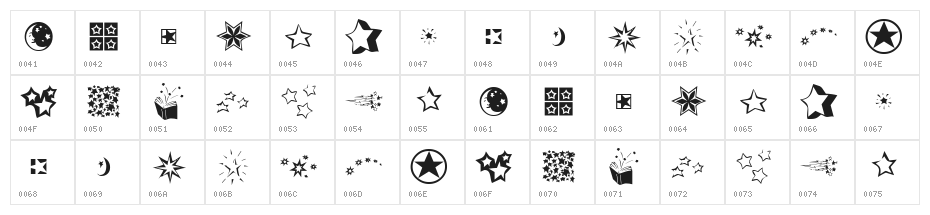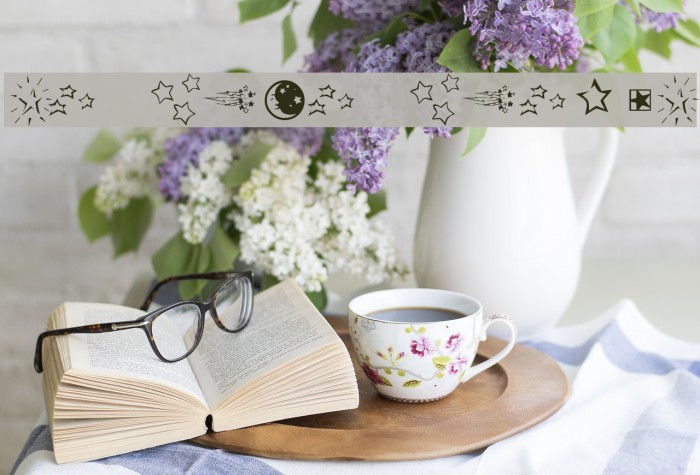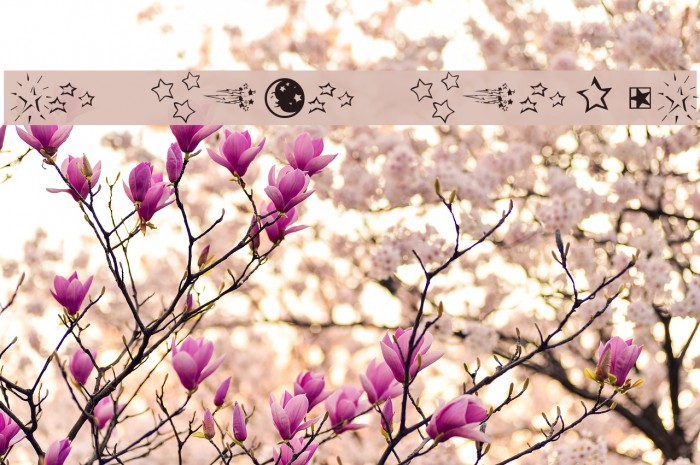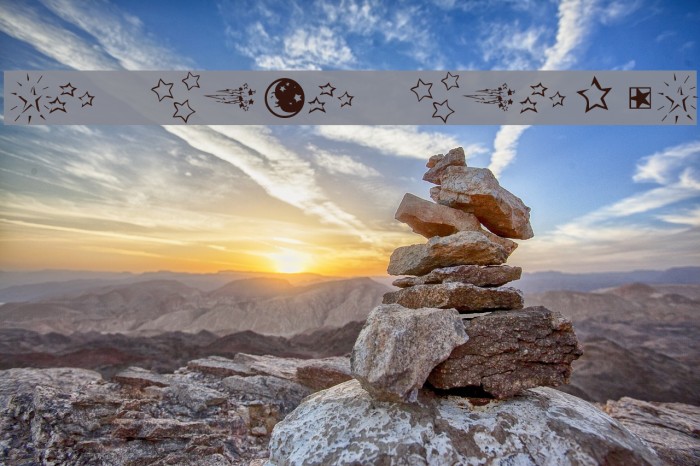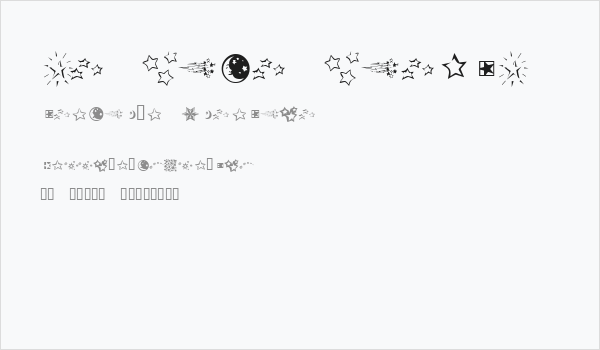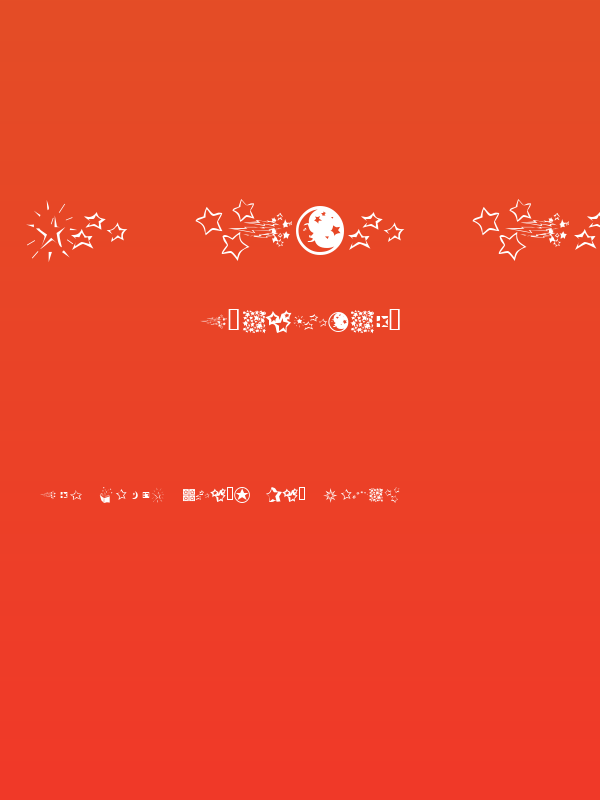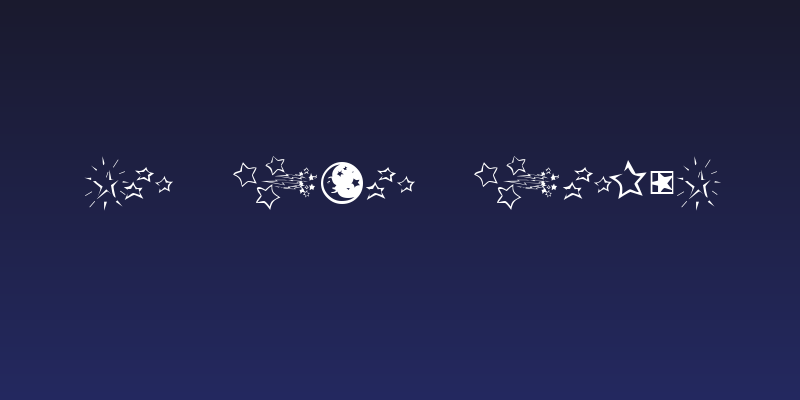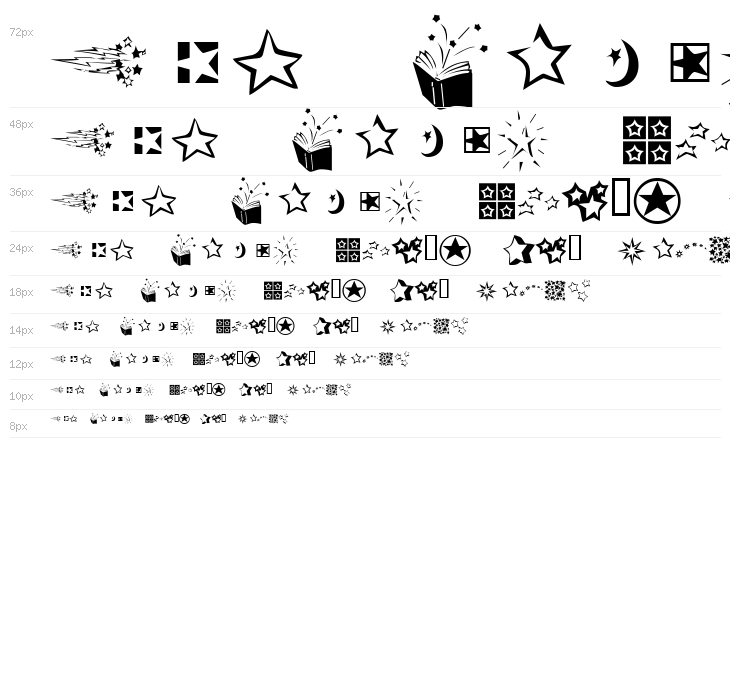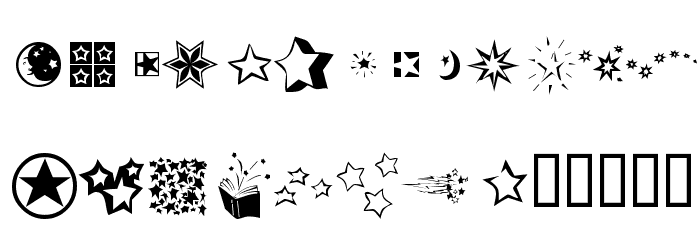
KR Star Struck Font
KR Star Struck Description
A decorative dingbat font featuring a variety of star-themed symbols, including stars in different shapes, starbursts, moons, and rectangular frames. The glyphs are bold, playful, and highly illustrative, with some elements combining stars with other motifs like books or sparkles.
| Overall Style | Decorative, Playful, Whimsical |
| Use Case | Logos, Headlines, Decorative elements, Themed graphics |
| Proposed Projects | Party invitations, children's book covers, celebratory banners, scrapbooking, themed event posters. |